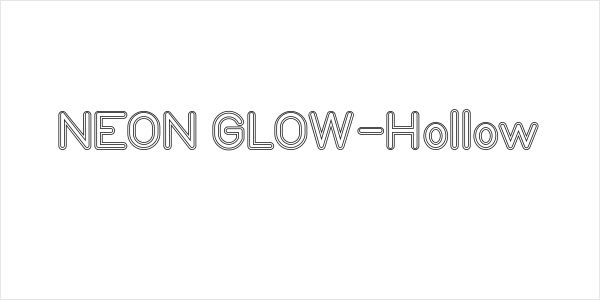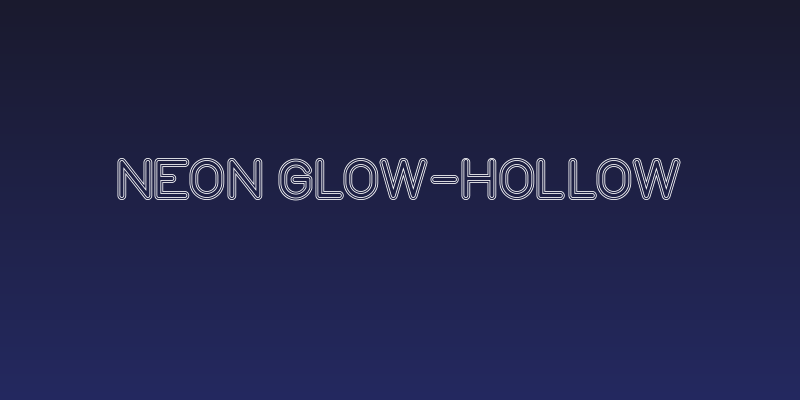
NEON GLOW-Hollow Font
NEON GLOW-Hollow Description
This font features a unique hollow design with a neon glow effect, creating a striking and modern appearance. The characters are outlined with a double line, giving them a three-dimensional look that is both eye-catching and stylish. The uppercase and lowercase letters maintain a consistent style, with rounded edges and a balanced structure. The numerals and special characters follow the same design principles, ensuring uniformity across all glyphs. This font is perfect for projects that require a bold and futuristic aesthetic, such as digital art, posters, or branding materials.
| Proposed Projects | Ideal for digital art, posters, branding, and any project needing a futuristic look. |